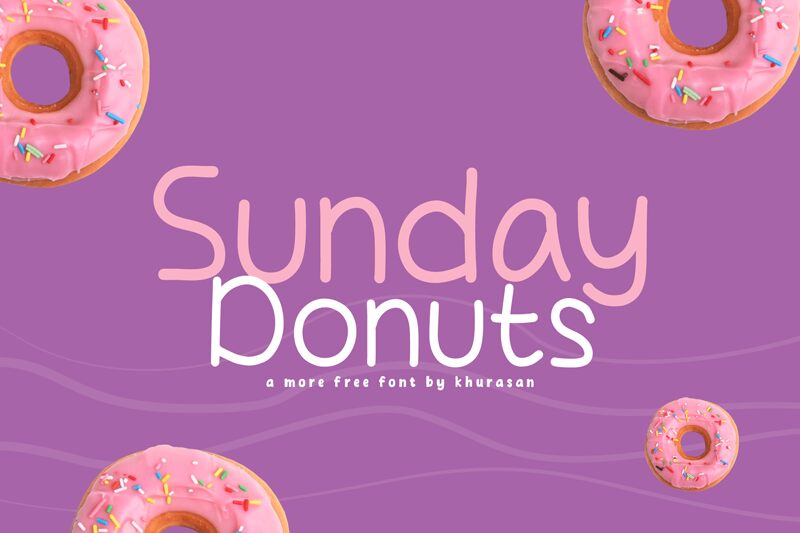
Sunday Donuts, designed by Khurasan, is a delightful handwritten font that adds a touch of modernity and cuteness to any design project. Its semi-light weight lends an airy and playful feel, making it ideal for various applications.
Whether you're designing eye-catching posters, captivating logos, stylish magazines, compelling book covers, or attention-grabbing banners, Sunday Donuts will effortlessly elevate your creations. With its versatility and charm, this font can be paired with a wide range of projects.
Presentación y muestra visual de la fuente Sunday Donuts
Sunday Donuts